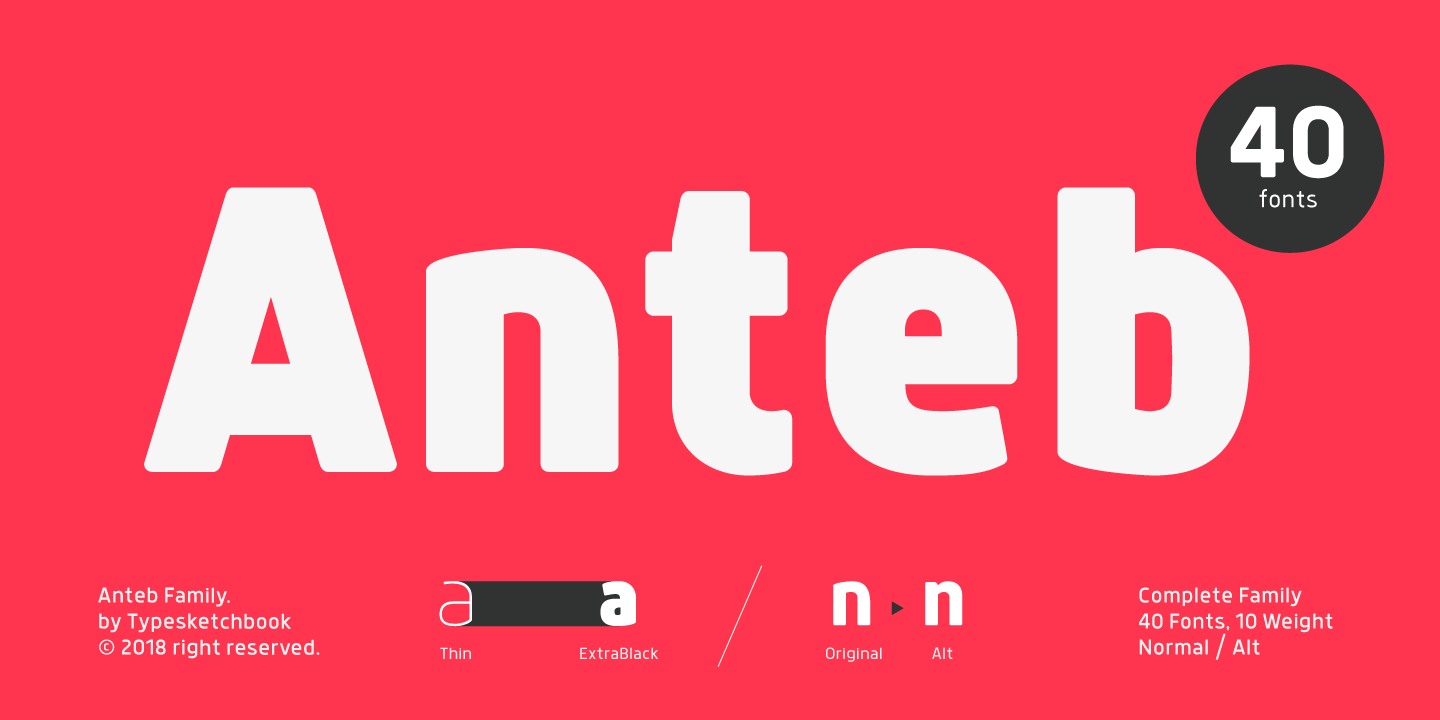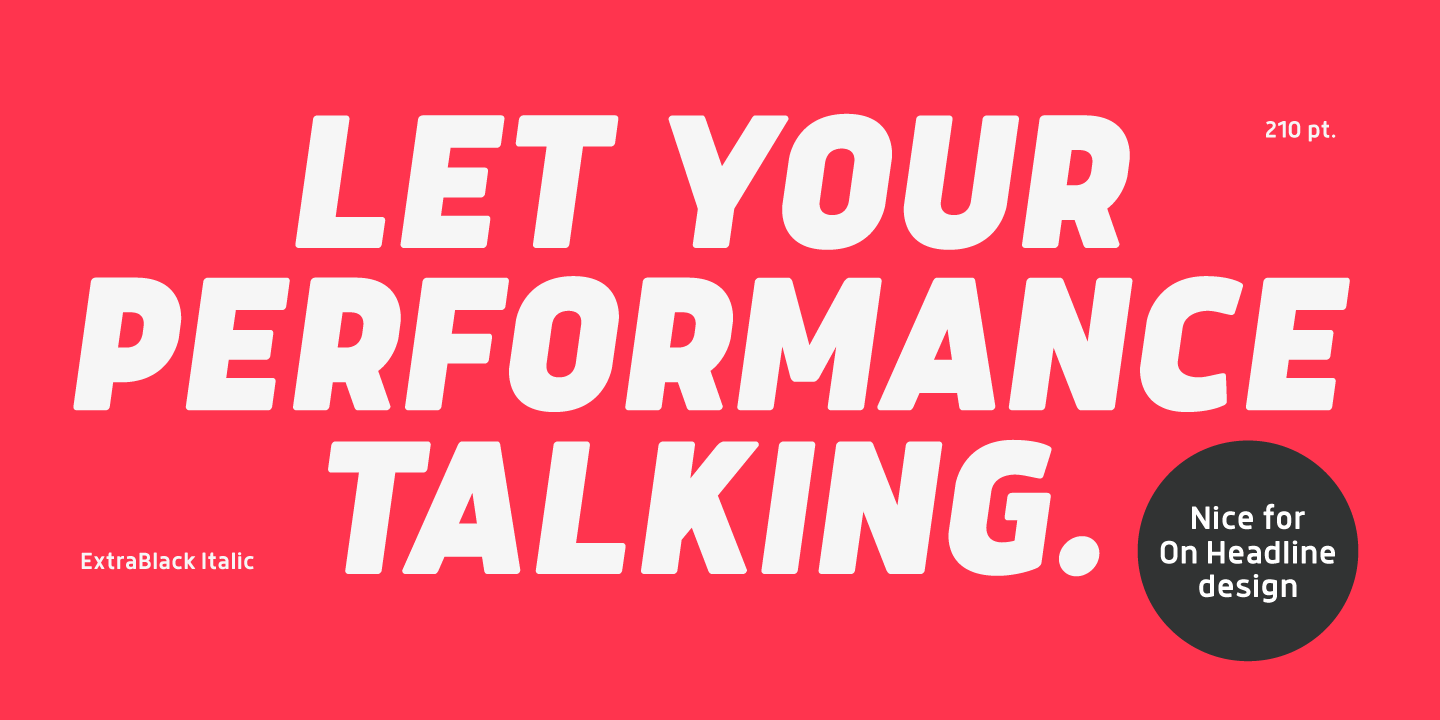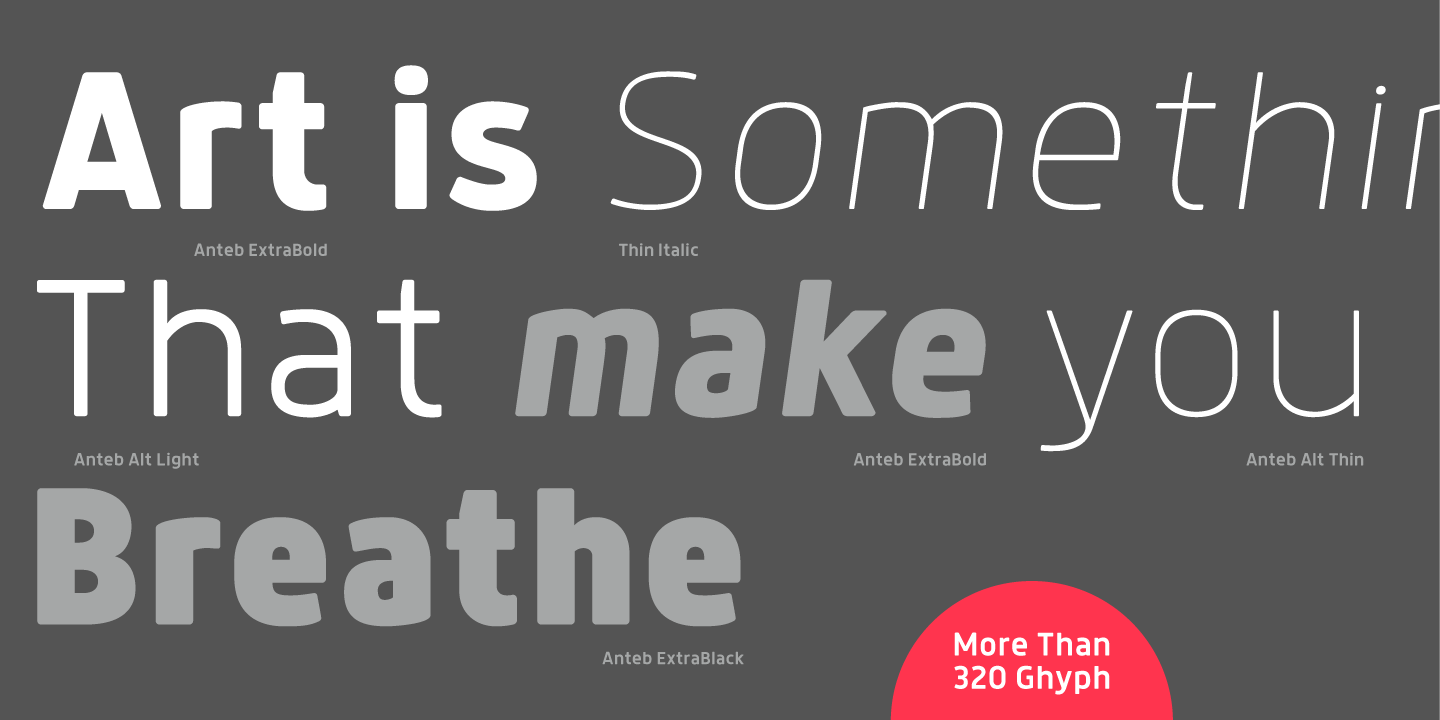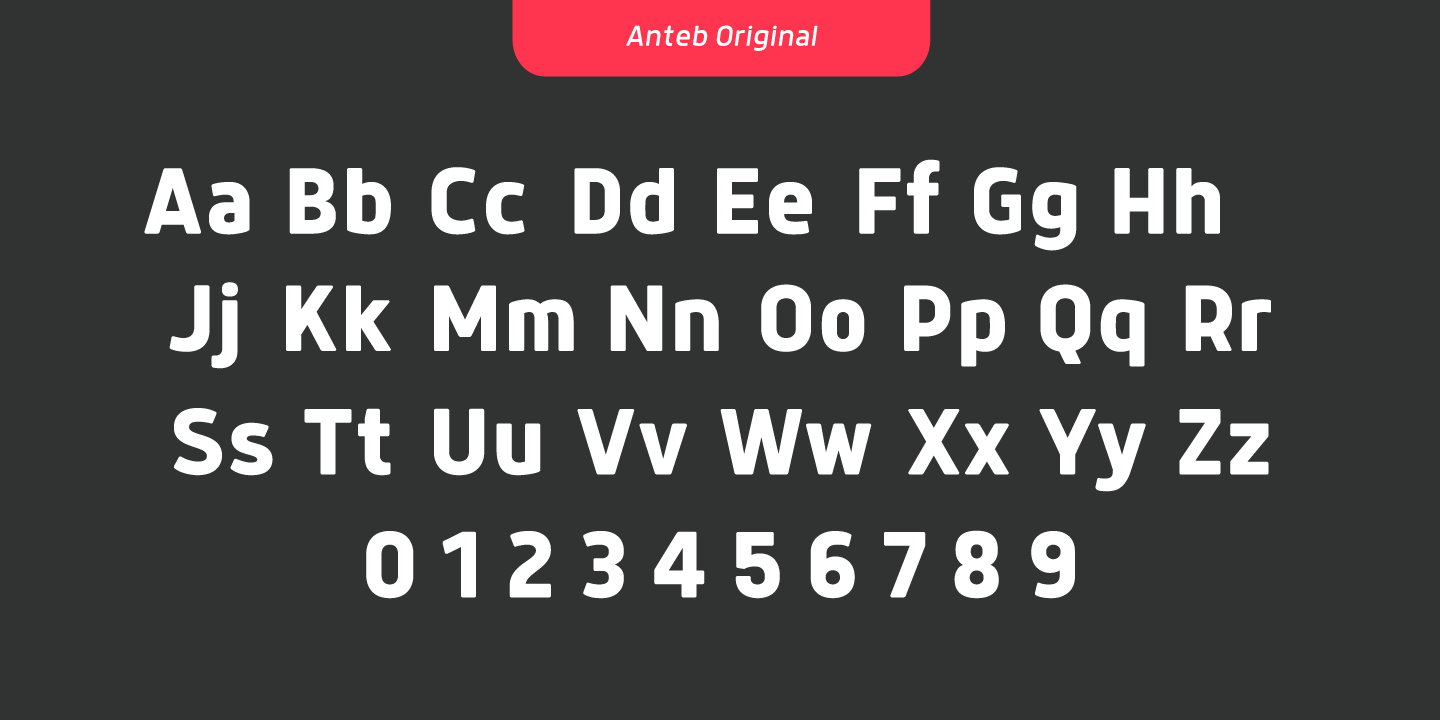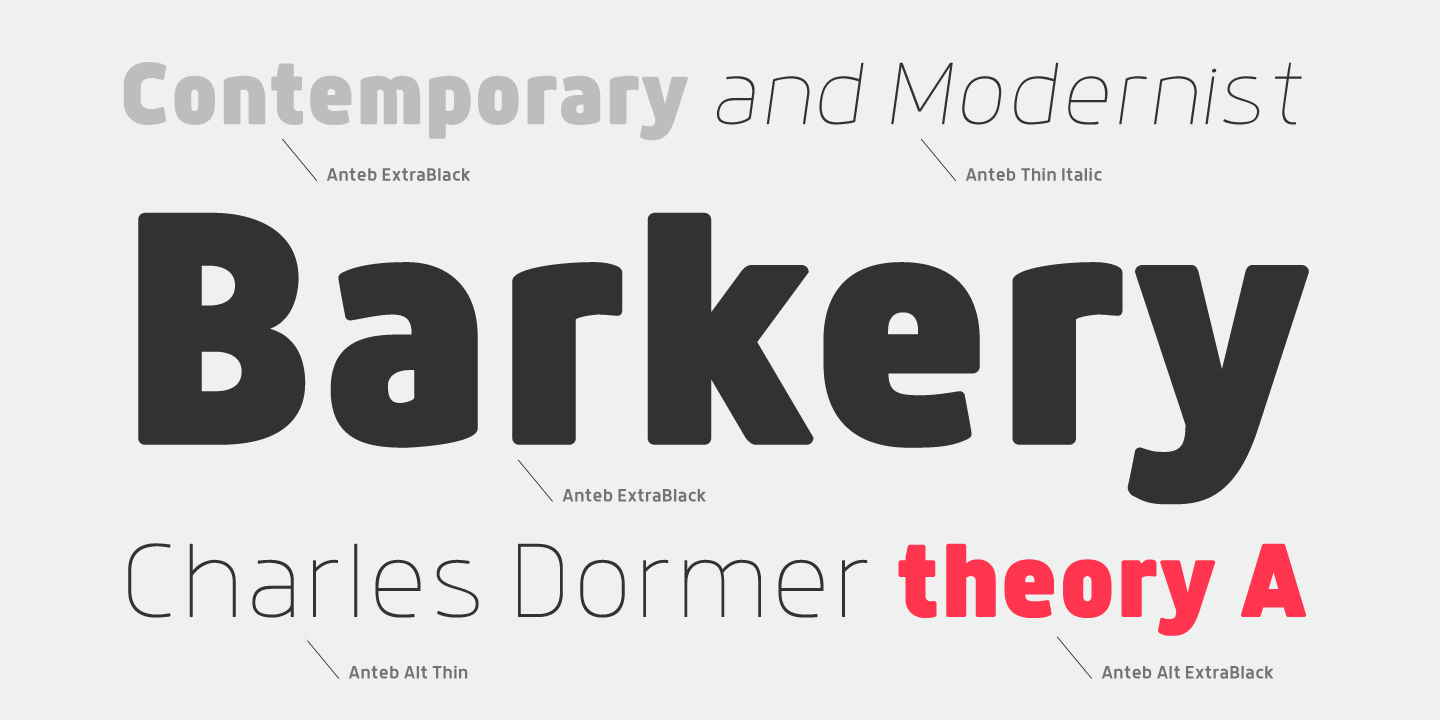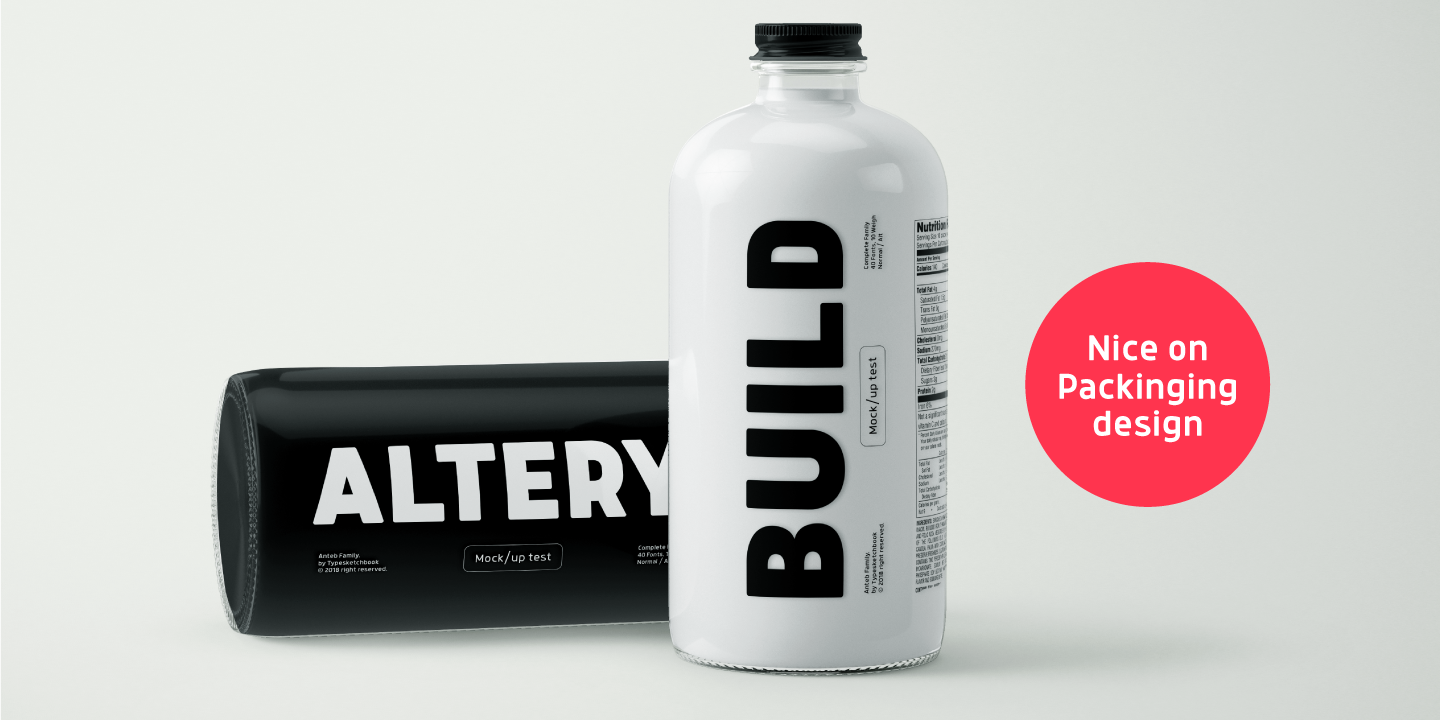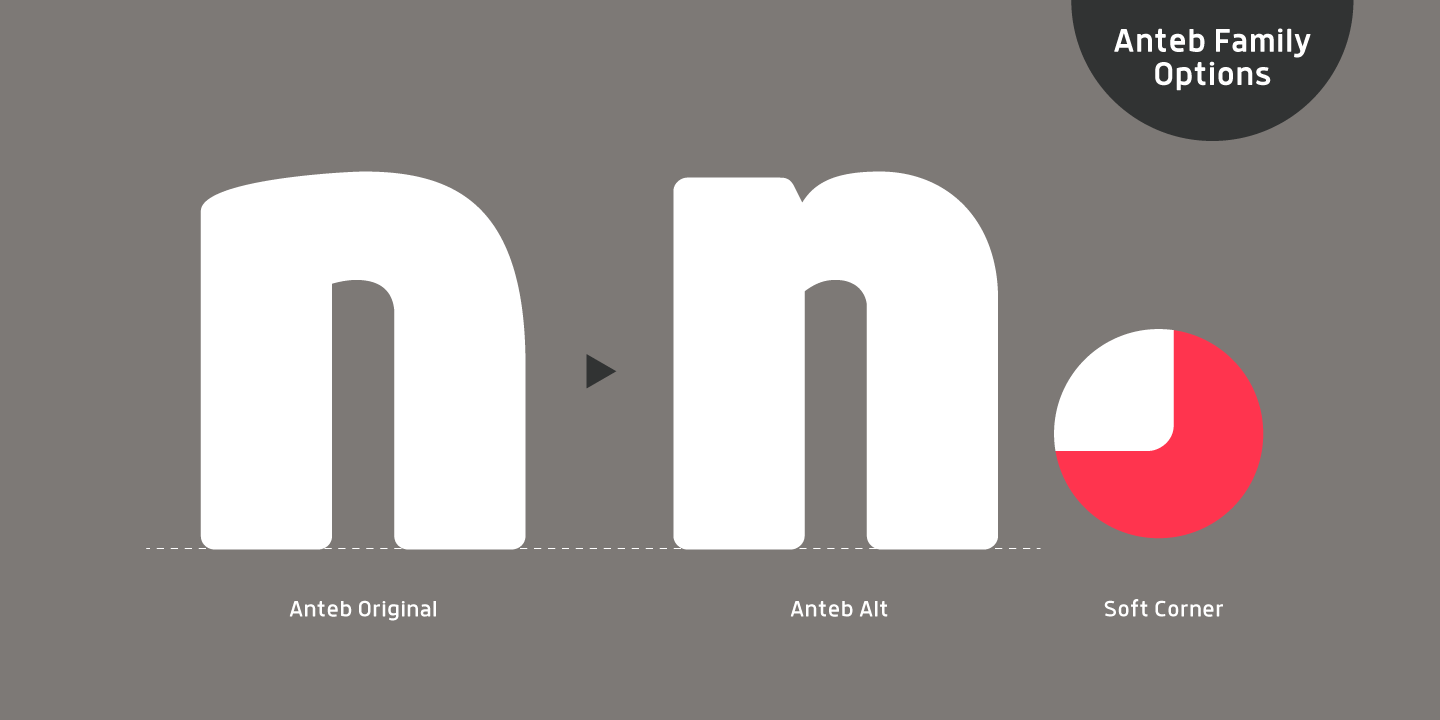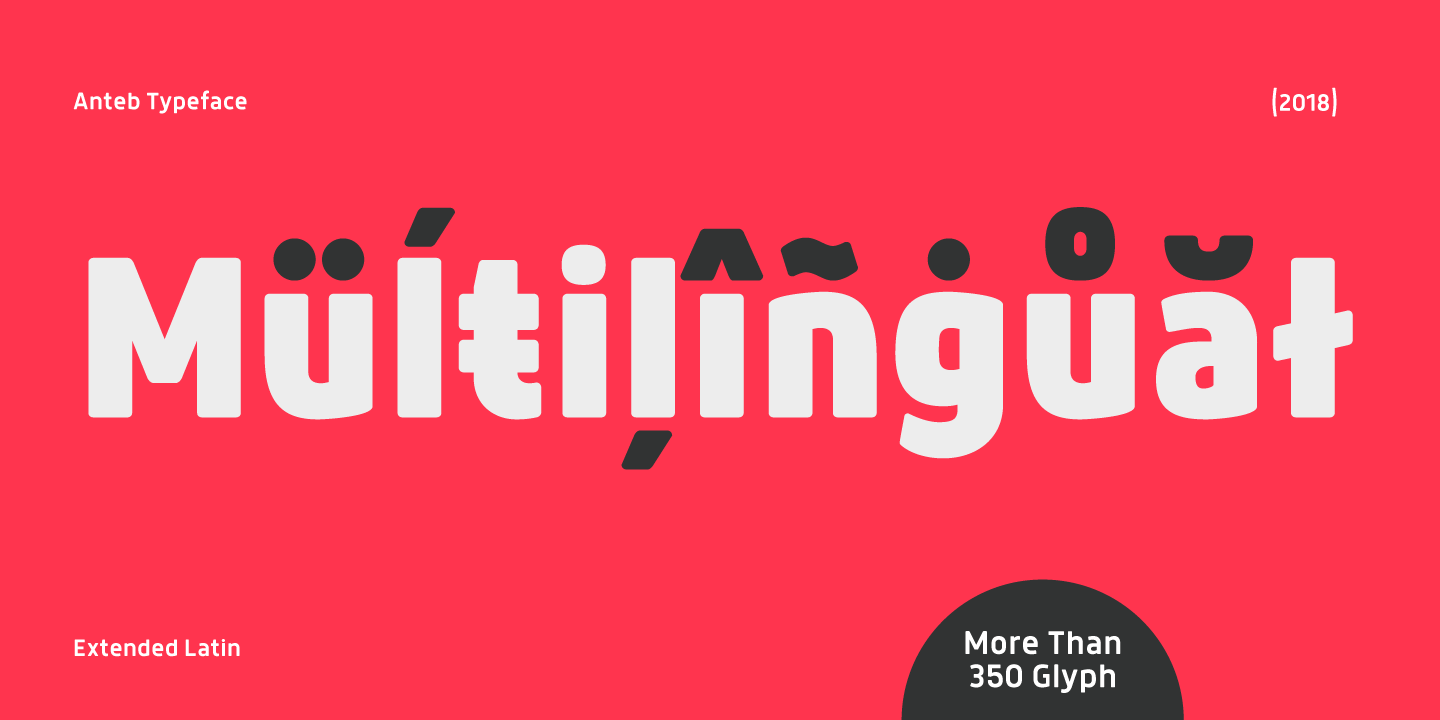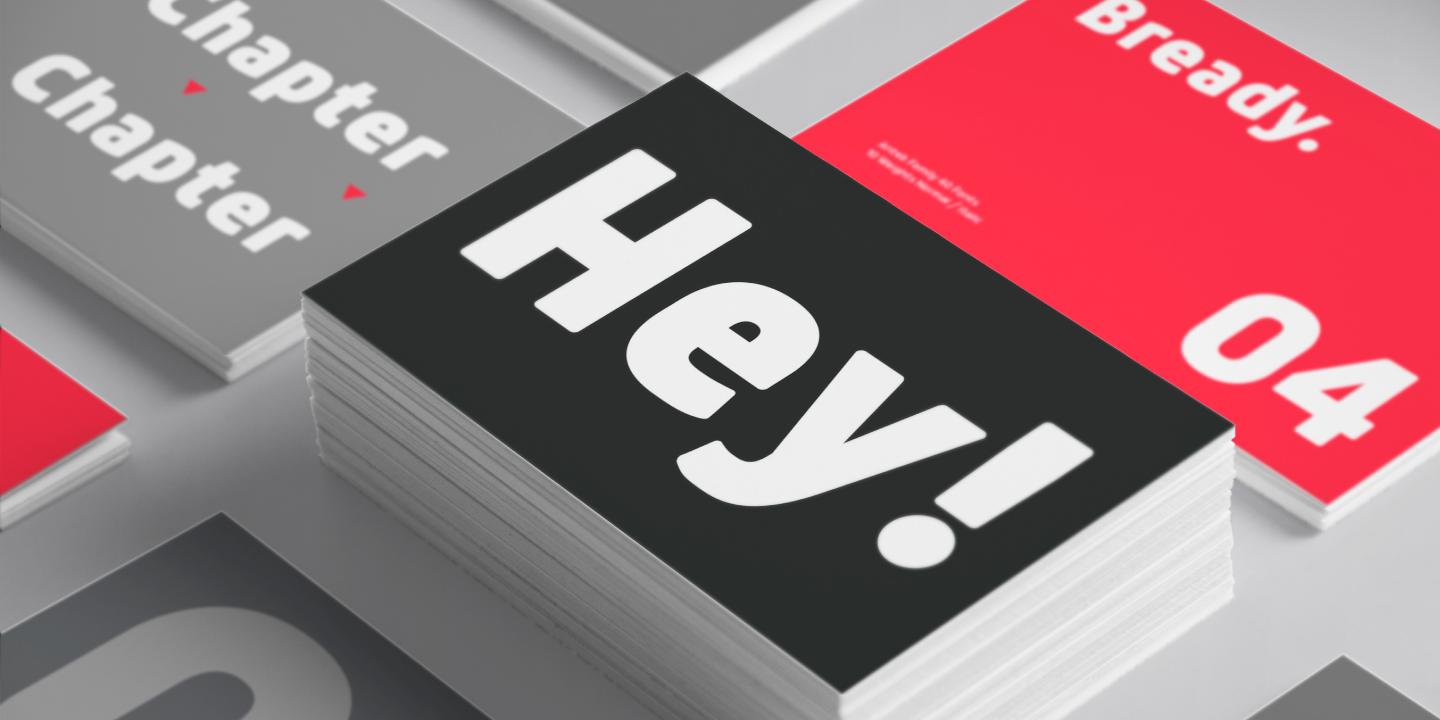
Anteb Family (40 fonts)
From Typesketchbook
10 separate weights from Thin to ExtraBlack plus matching italics and Alternates were created for each font, which is well suited for a variety of typographic applications such as headlines and small texts. The Anteb font family supports multiple languages.
About Typesketchbook
Located in the capital city of Thailand, Chatnarong Jingsuphatada started his type design career while working as a graphic designer. Throughout his career, whenever he was unable to find exactly what he needed for his own design projects, he began to create new typefaces rather than settle for ones that didn’t quite fit.
He experimented with different designs for 2 years before launching his Superstore Font Foundry, and then in 2012, began selling his typefaces commercially. Chatnarong made his debut with Gusto, a font that explores the intersection of san serif and humanist styles. Finding a strength in his ability to combine different styles of fonts into one, he went on to create Quan, which consists of a very usable, clean and modern sans typeface and a more rounded sub-family.
The Bangkok-based designer says, “Having worked as a graphic designer, I have gained insight into what designers want and need and what they look for in regard to how usable and interesting a font is. I try to create fonts that are multi-functional and attractive to suit today’s diverse fields of design. I draw inspiration from the creation and integration of different sets of fonts. This method offers me endless possibilities to design original typefaces that boast versatility and creativity.”